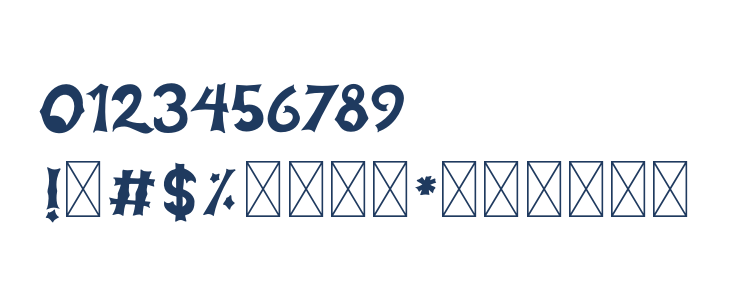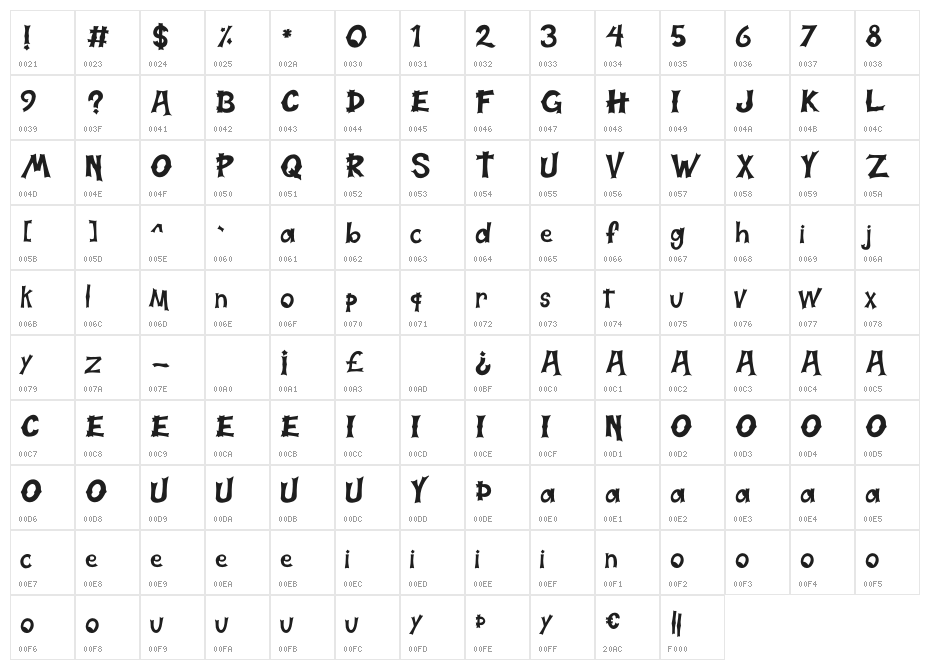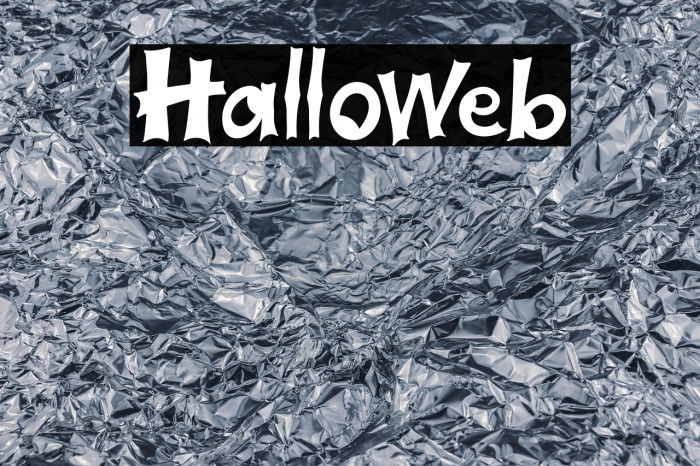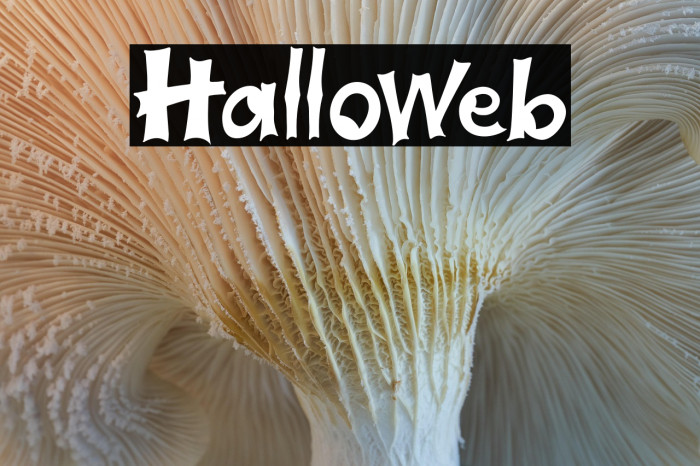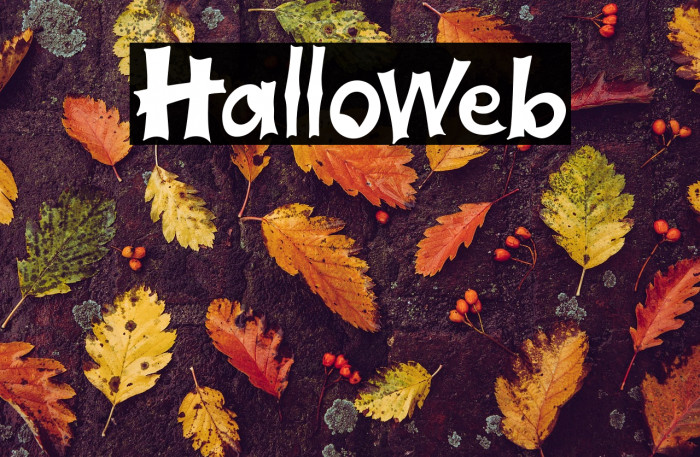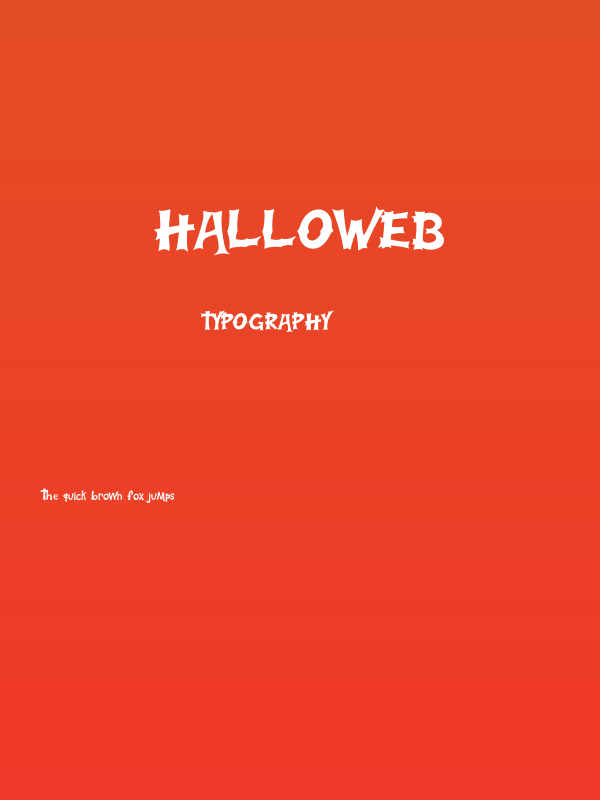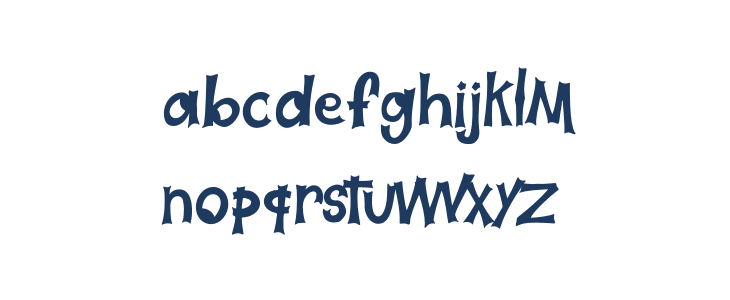
Halloweb Font
Halloweb Description
This font features a playful and spooky aesthetic, reminiscent of Halloween themes. The characters are bold and jagged, with irregular edges that give them a hand-drawn appearance. The uppercase and lowercase letters maintain a consistent style, with exaggerated serifs and a slightly uneven baseline, adding to the whimsical and eerie vibe. The numbers and special characters follow the same design principles, ensuring a cohesive look across all glyphs. This font is perfect for creating eye-catching designs that require a touch of mystery and fun.
| Proposed Projects | Ideal for Halloween-themed designs, party invitations, posters, and any project needing a playful, eerie touch. |